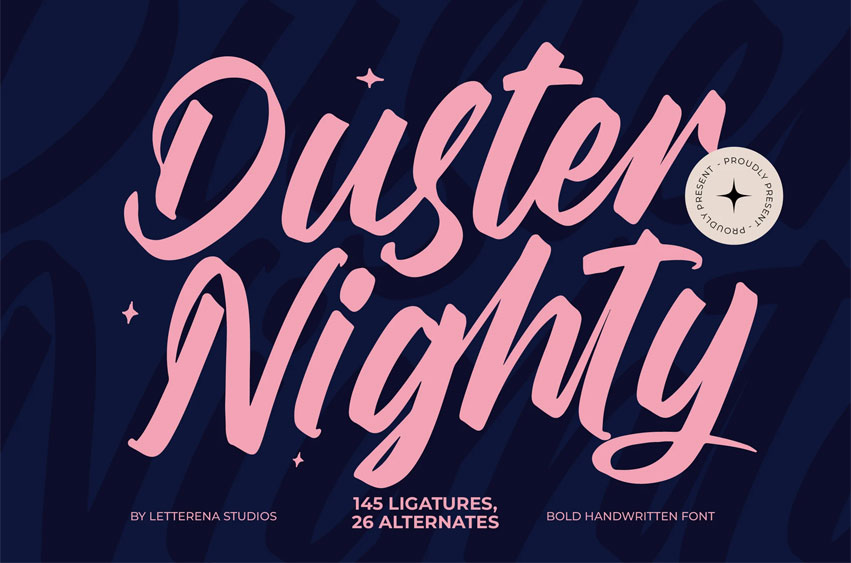
Duster Nighty Font
Duster Nighty Font is suitable to complement your digital and printed creative products. This font is perfect for posters, social media posts, branding, personal projects, etc.